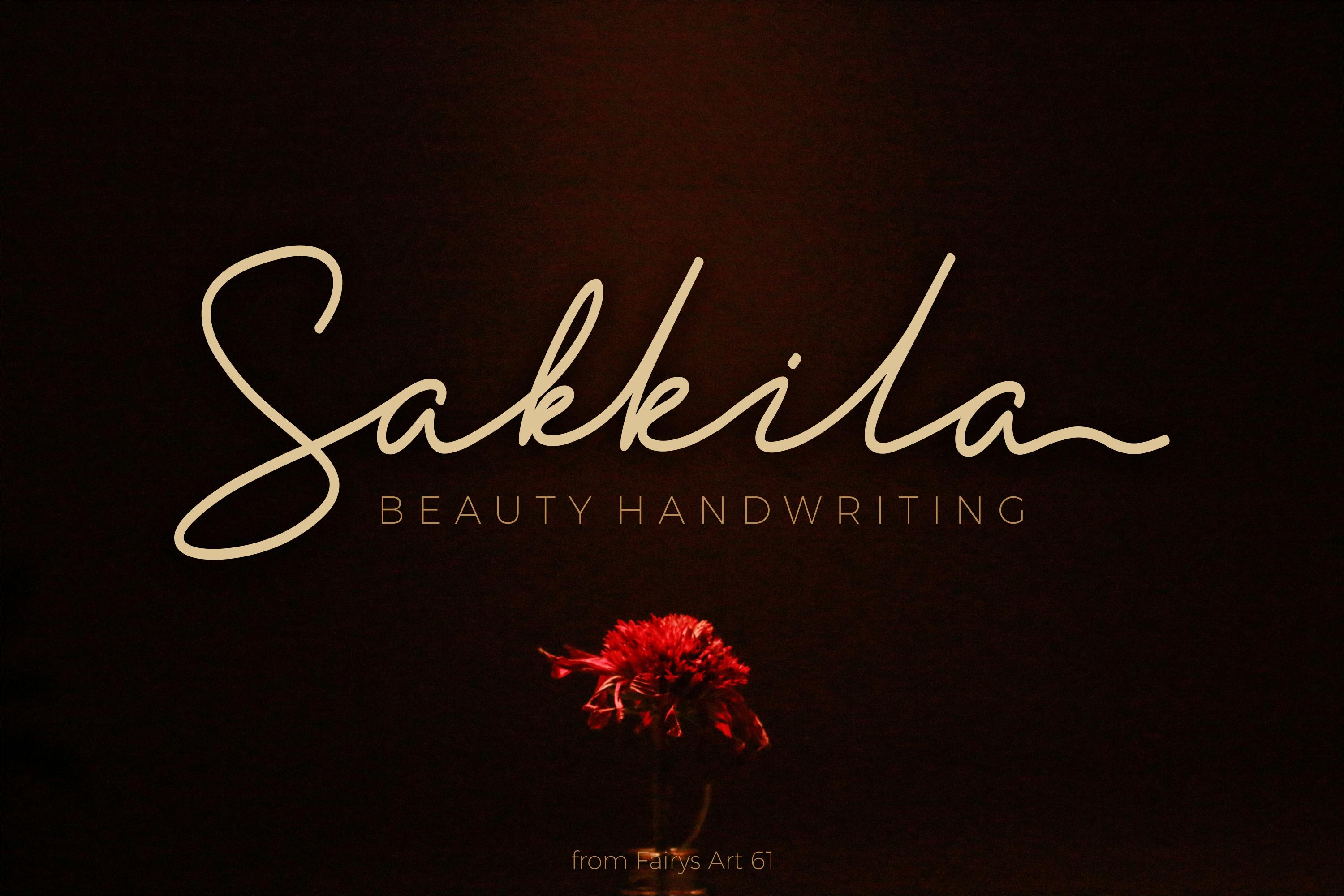
Sakkila Font Description
Sakkila is a thin and smooth handwritten font. It is recommended for designs such as watermarks, magazine covers, brand identities, business cards, salon, wedding invitations, t-shirts and other souvenirs. Sakkila is PUA encoded which means you can access all of the glyphs and swashes with ease!